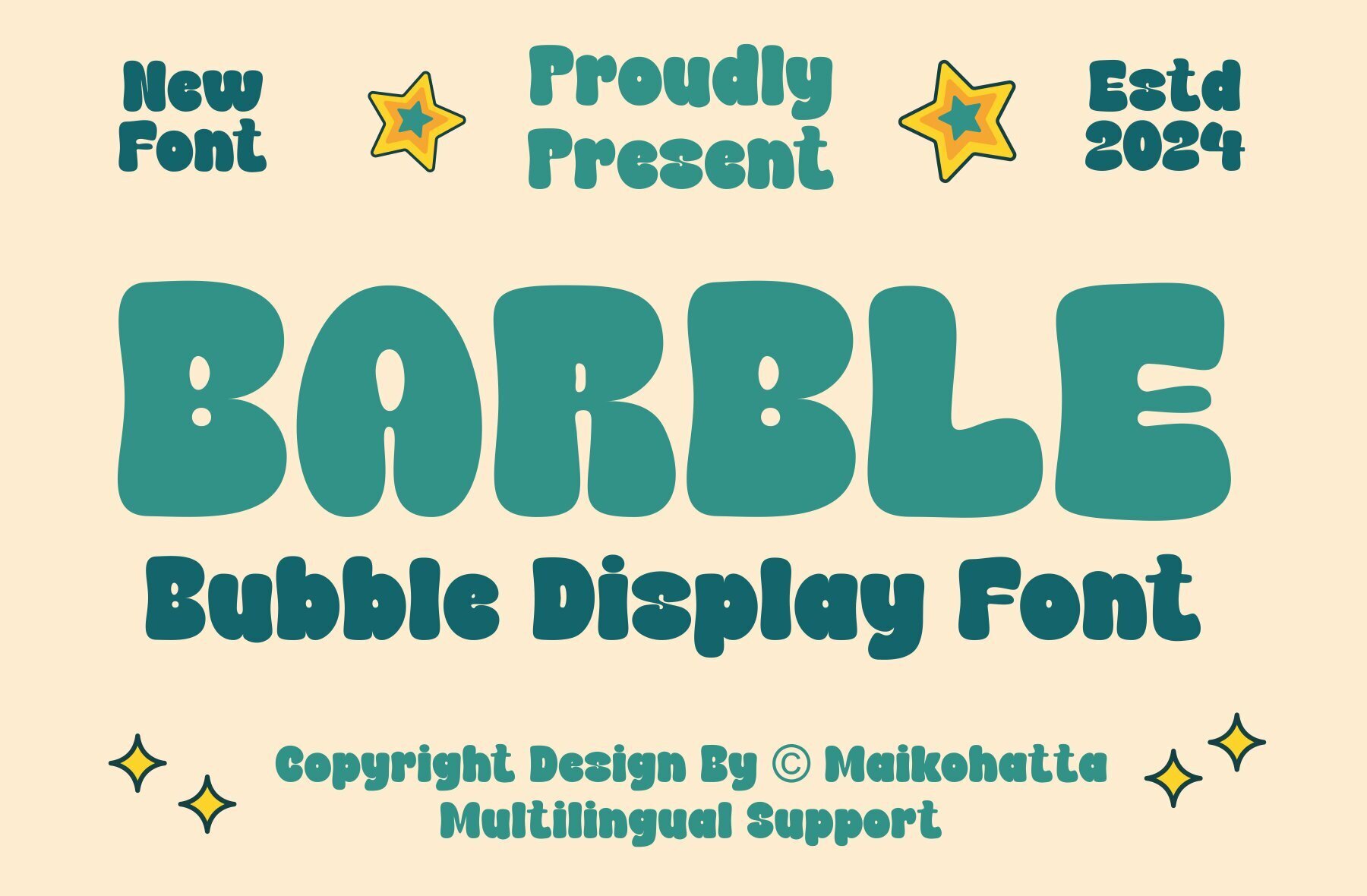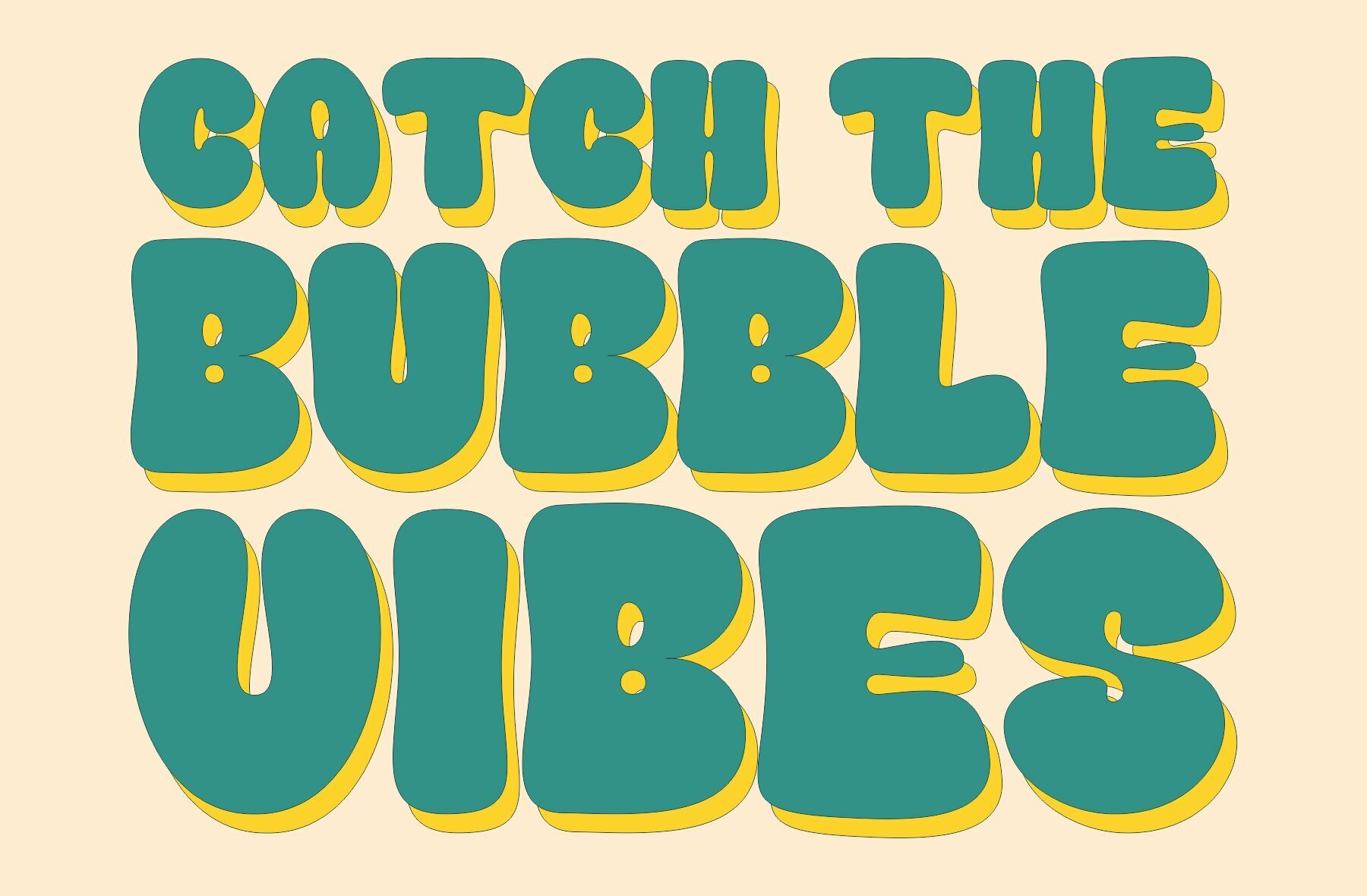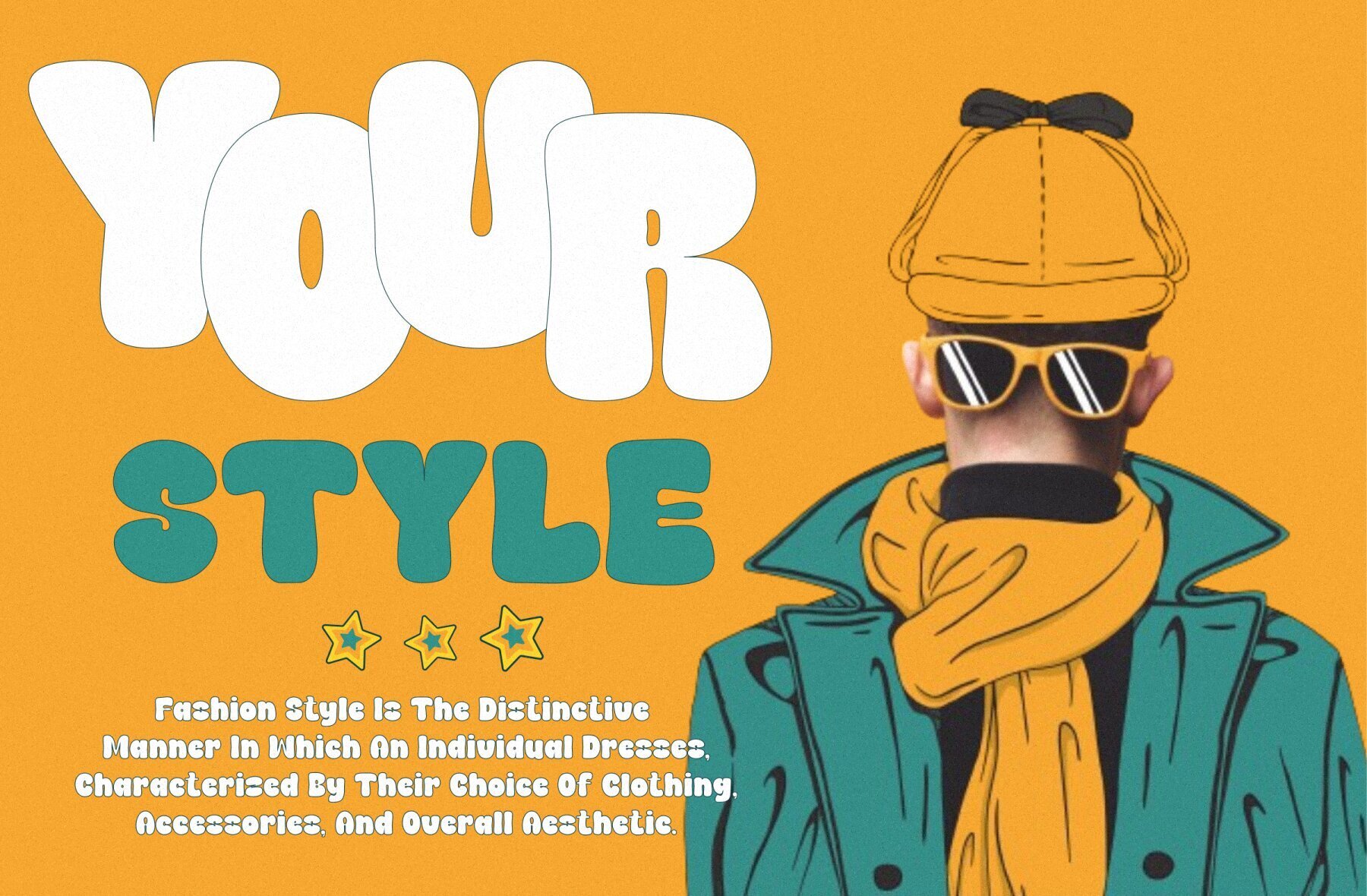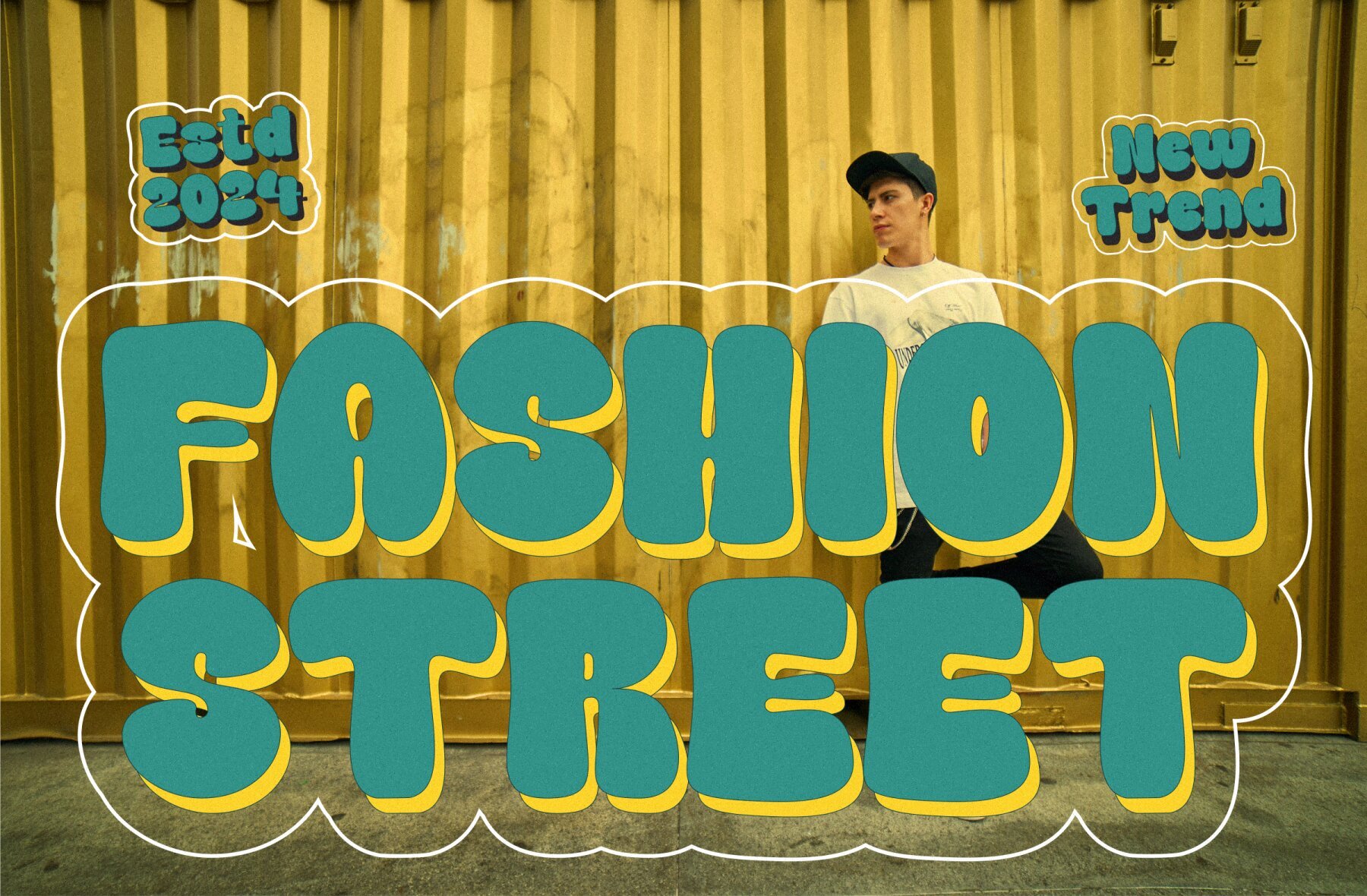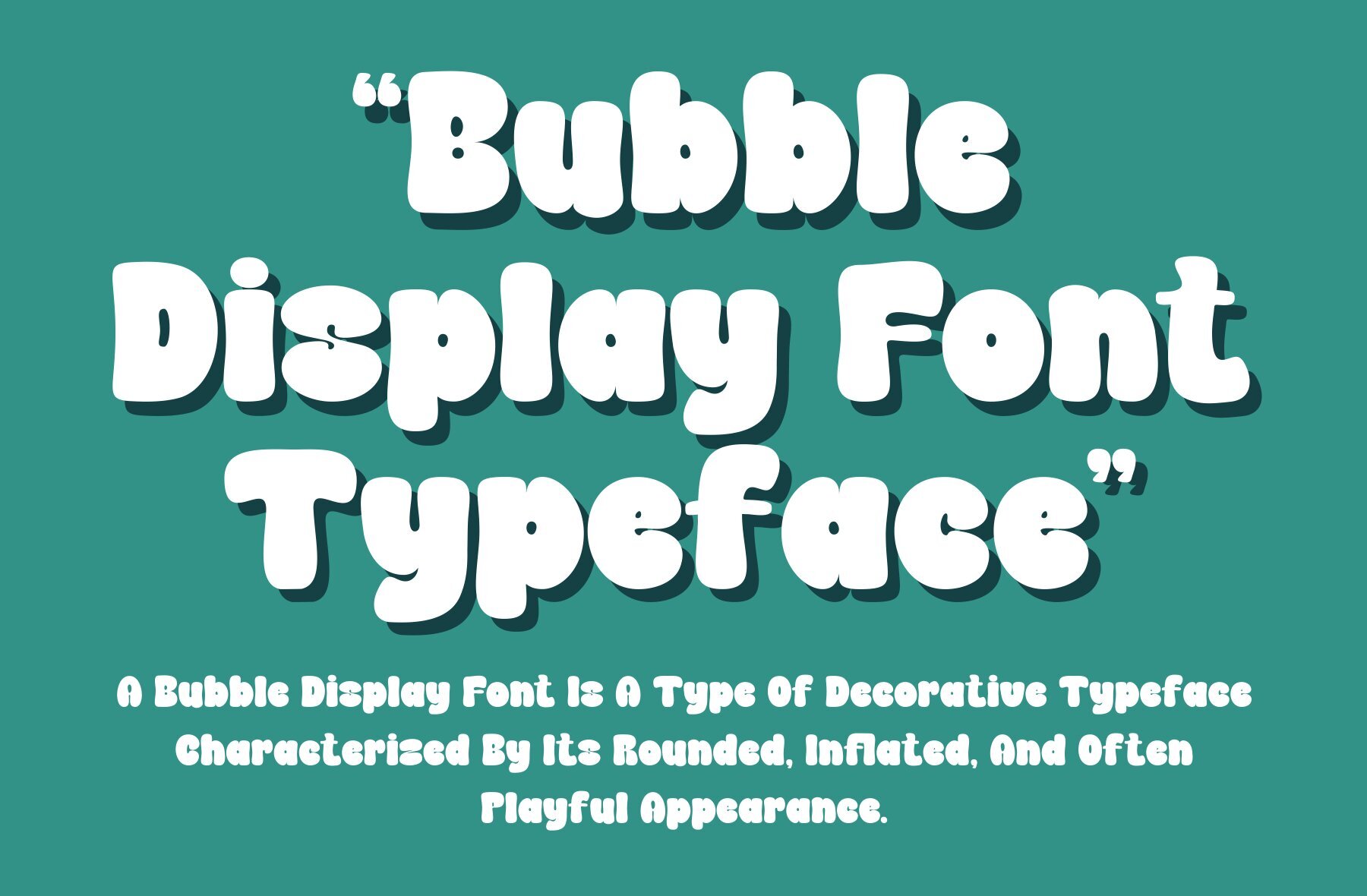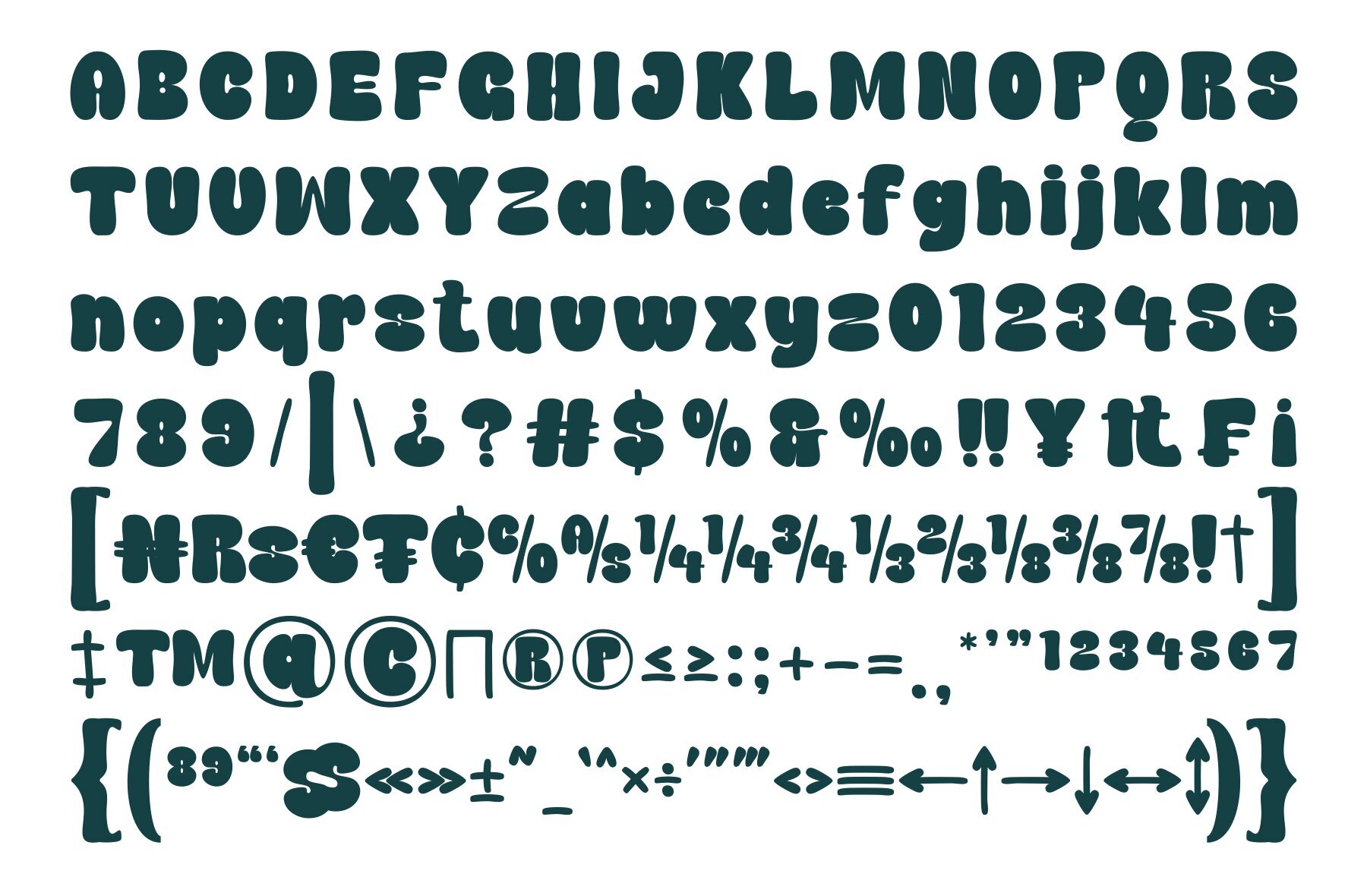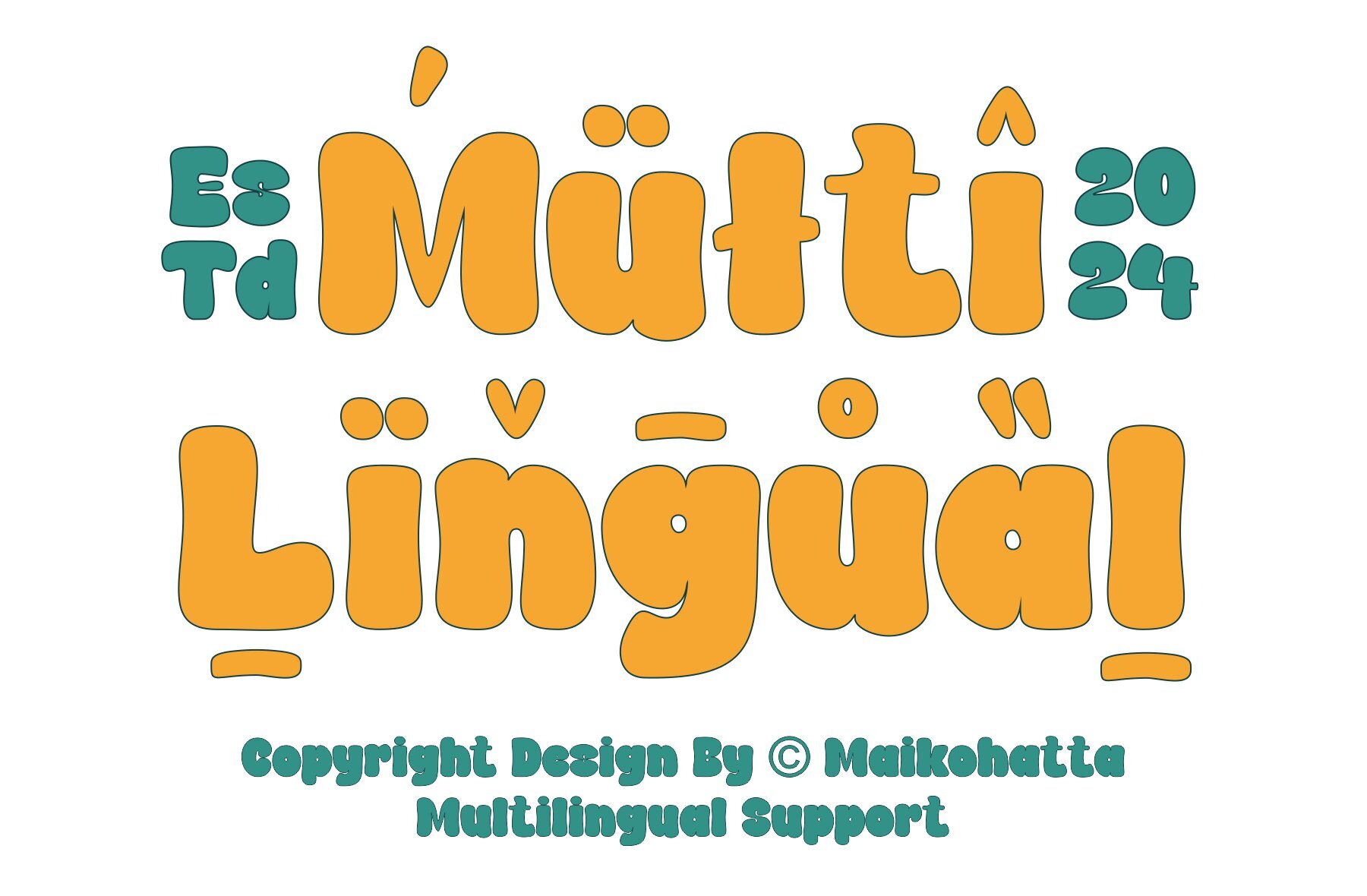
Barble Font
Barble Regular
Barble is an inviting bubble display font designed by Maikohatta. With its round and wide letter shapes and curved corners, it offers a soft and friendly impression ideal for projects that call for a youthful and cheerful vibe.Barble: Playful Bubble Display Font